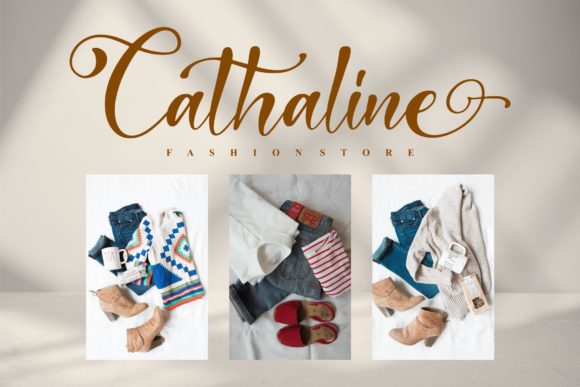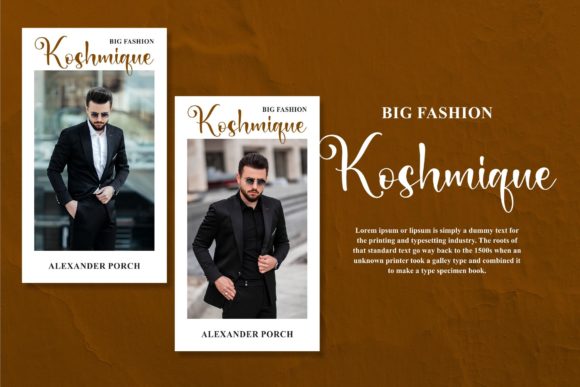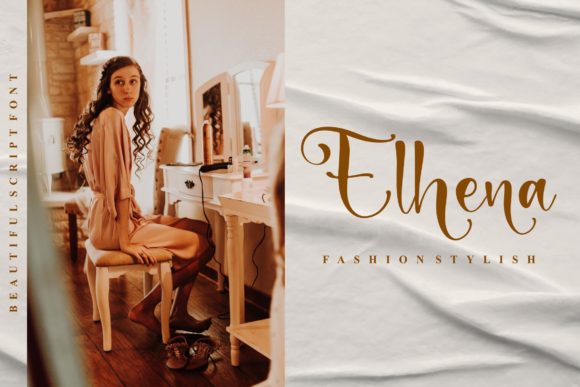
Introduction to Hatchery Font
Hatchery is a dazzling script font.
👤 Author Letterfabric
It is neatly crafted and highly detailed This font is PUA encoded which means you can access all of the amazing glyphs and ligatures with ease.
Key Features of Hatchery Font
Why Choose Hatchery Font?
Hatchery Font offers exceptional quality and versatility, making it a valuable addition to your design toolkit. Whether you’re creating for personal projects or commercial use, Hatchery Font delivers professional results.